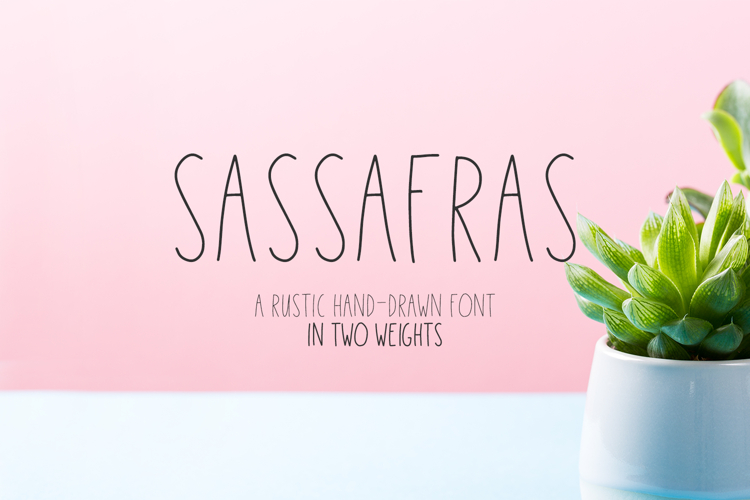
Sassafras Sans
Meet Sassafras, a delightfully wobbly hand lettered font with the perfect amount of farmhouse chic + rusticity for a handmade look & feel. Sassafras comes in two weights - regular and bold - for more flexibility with your projects!
Sassafras is best for projects like:
- designs like t-shirts, coffee mugs, decals, & more
- logos & branding needing a shabby chic feel
- print design & quote graphics that match a southern, rustic aesthetic
- website design
- uppercase characters only (lowercase is programmed the same as uppercase)